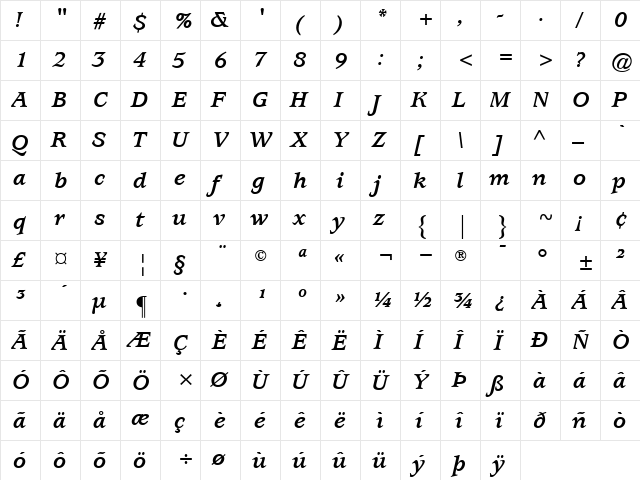
ITCUsherwood BoldItalic
Design Context for ITCUsherwood Typeface
ITCUsherwood echoes the hand-painted signage and woodblock typography of the American frontier, with a warm, rugged personality. The slanted form adds forward momentum and visual energy. The heavy weight commands attention and anchors typographic hierarchies.
Perfect for barbecue restaurants, country music branding, vintage poster design, and rustic packaging.
Font Pairing: Combine ITCUsherwood with a simple slab or neutral sans — period-accurate companions reinforce the vintage feel without competing for attention.
Pro Tip: Pair ITCUsherwood with aged textures or distressed backgrounds to amplify its vintage personality.